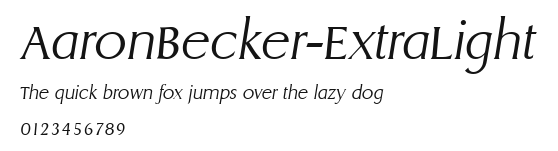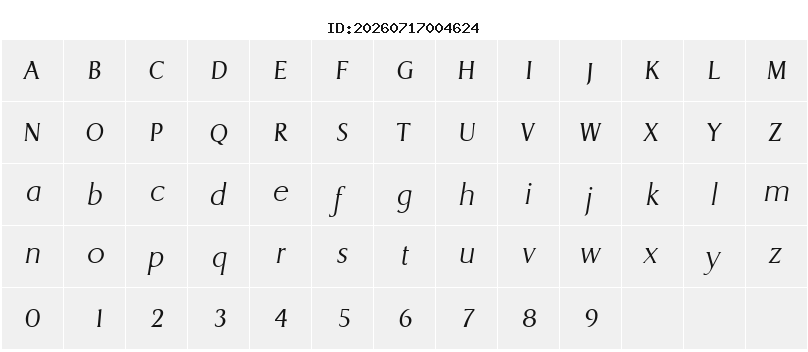
• Font Name: AaronBecker-ExtraLight
• Full Font Name: AaronBecker-ExtraLight Italic
About AaronBecker-ExtraLight.ttf
AaronBecker-ExtraLight.ttf is a modern, elegant sans-serif font designed for ultimate readability and visual harmony. Perfect for branding, headlines, web design, and print materials.